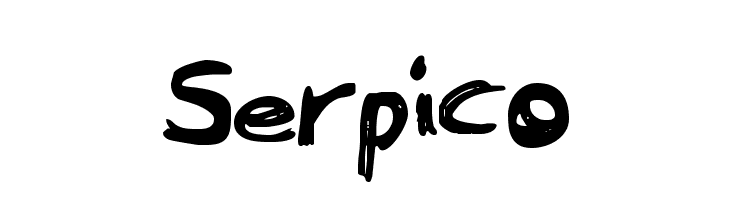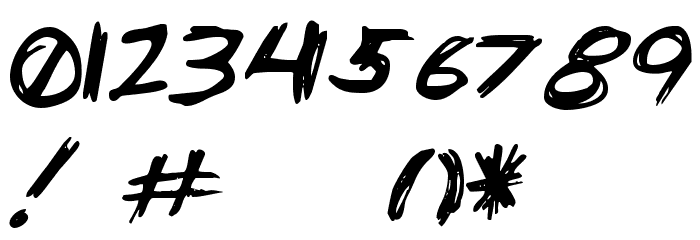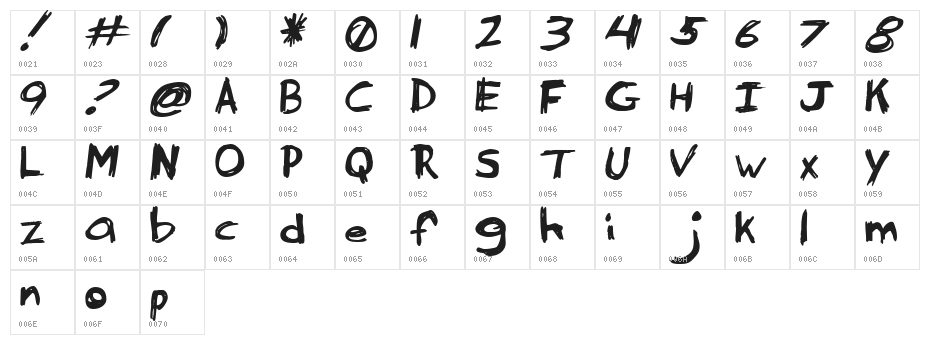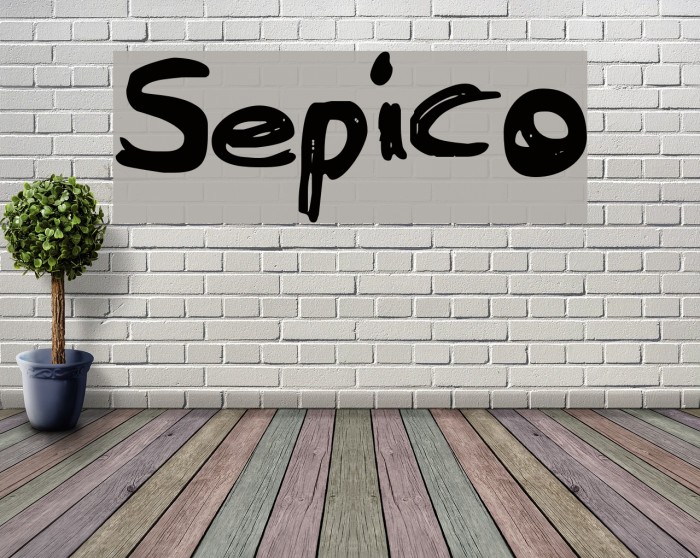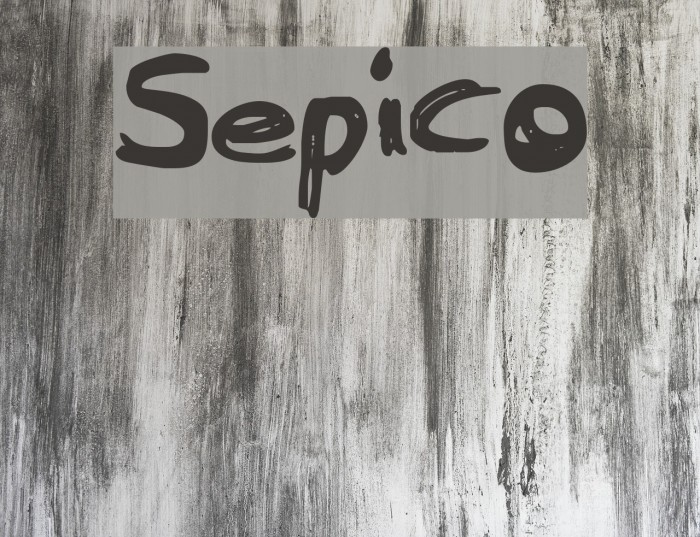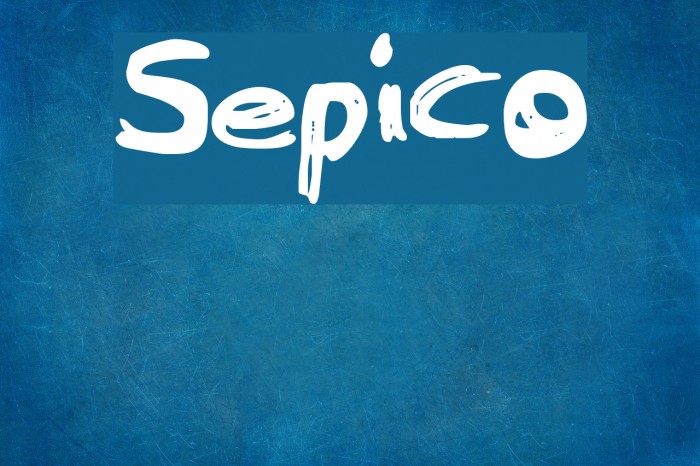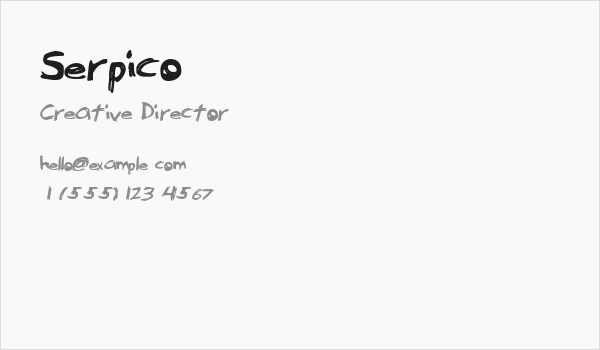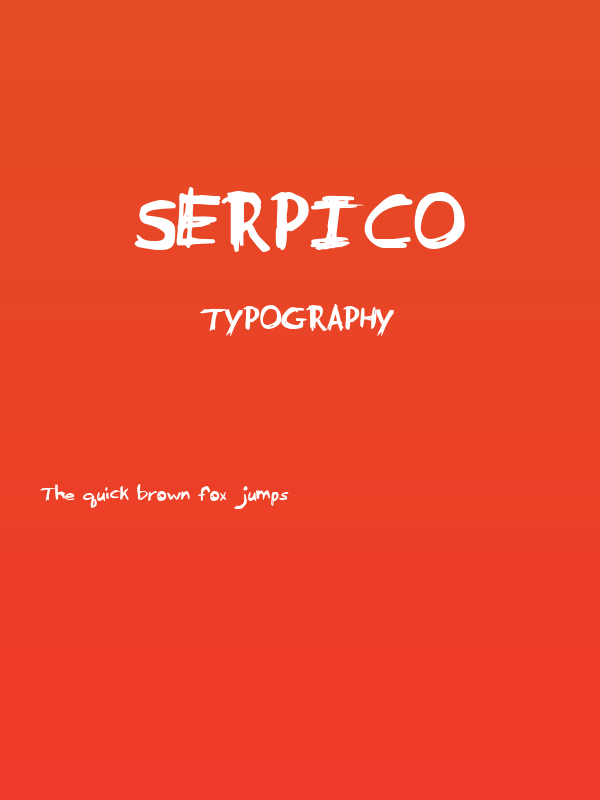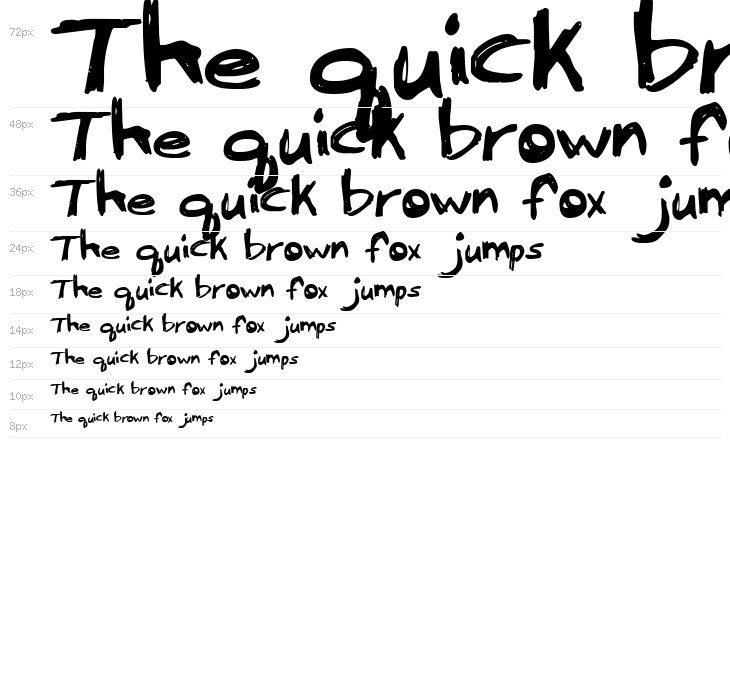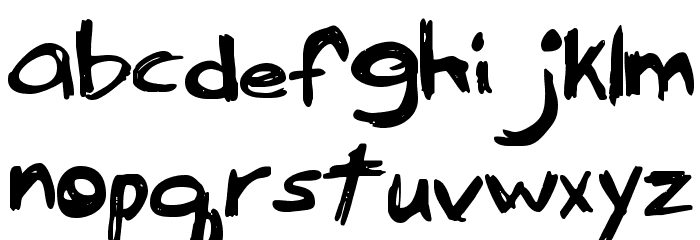
Serpico Font
Serpico Description
This font exhibits a bold, expressive style with a hand-drawn appearance. The letters are irregular and dynamic, giving a sense of movement and energy. The strokes are thick and uneven, contributing to a raw, artistic feel. The uppercase and lowercase letters maintain a consistent style, with exaggerated curves and angles that enhance its playful and informal nature. The numbers and special characters follow the same design principles, ensuring a cohesive look across all elements. This font is ideal for projects that require a personal touch or a creative, unconventional aesthetic.
| Proposed Projects | Ideal for posters, album covers, artistic projects, and branding that seeks a creative, informal touch. |